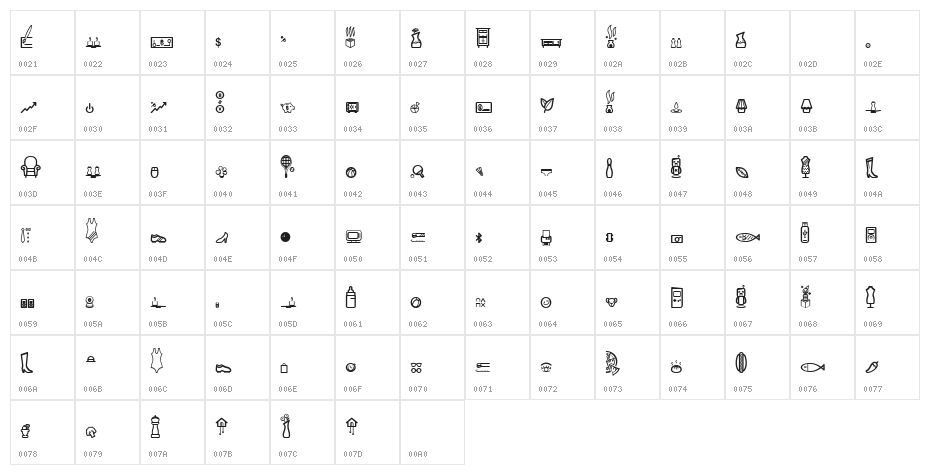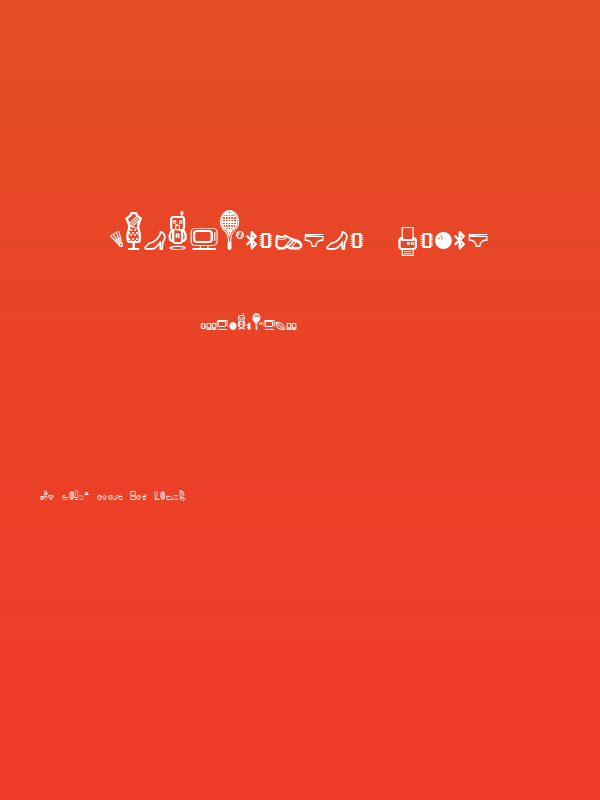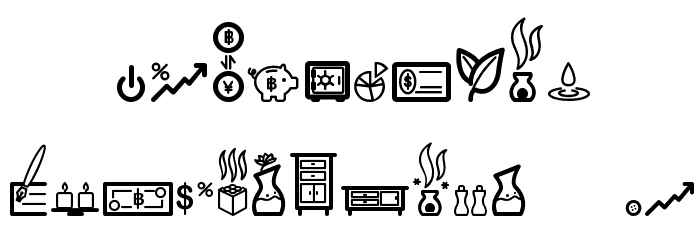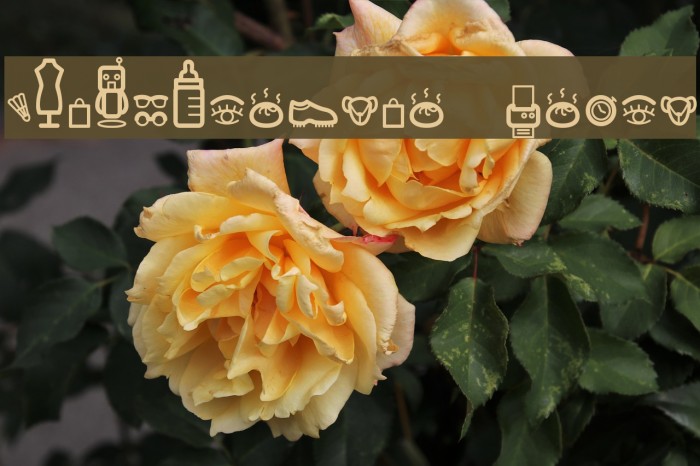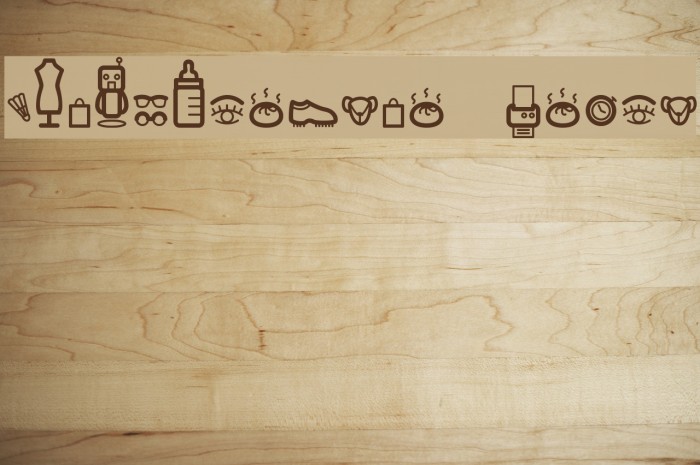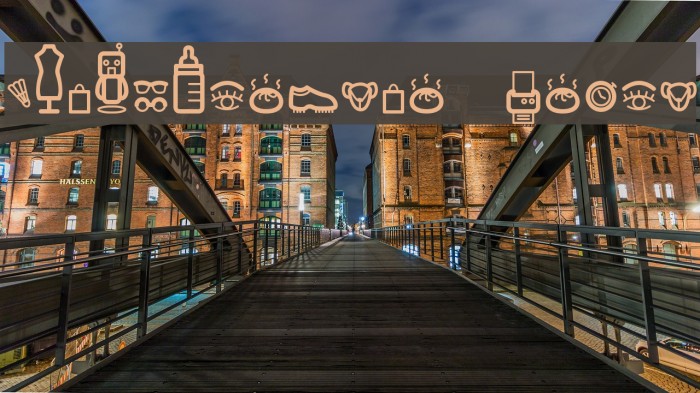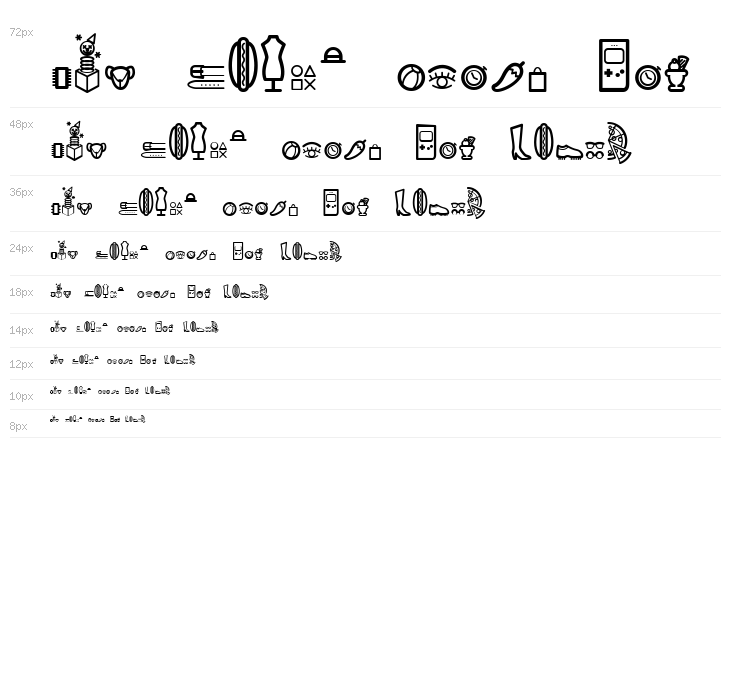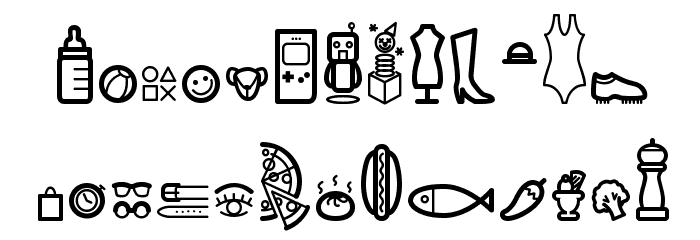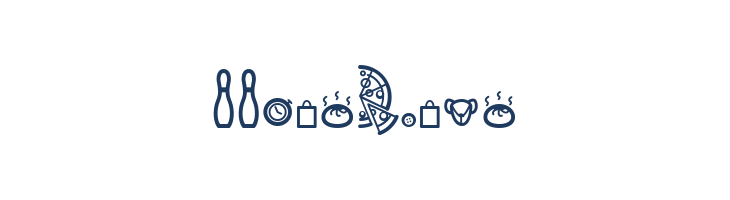
Dingpartment Store Font
Dingpartment Store Description
A playful, icon-based dingbat font featuring bold, outlined pictograms representing various department store items such as sports equipment, electronics, fashion, food, finance, and home goods. Each character is a unique, easily recognizable symbol with consistent stroke thickness and rounded corners.
Ekawit Lekviriyakul
| Overall Style | Playful, Modern, Decorative |
| Use Case | Icons, Infographics, Signage, Category labels |
| Proposed Projects | Infographics, signage, retail flyers, category markers, playful branding, educational materials. |